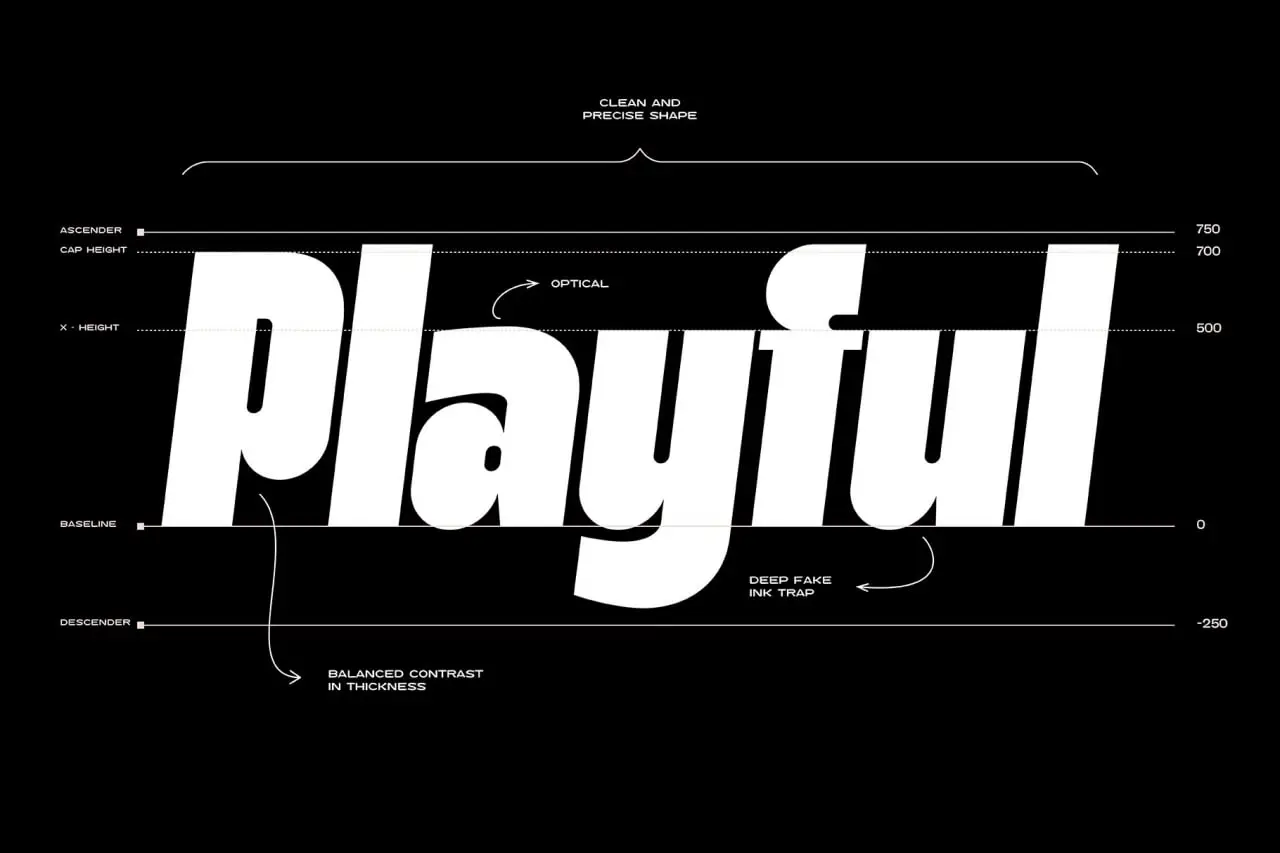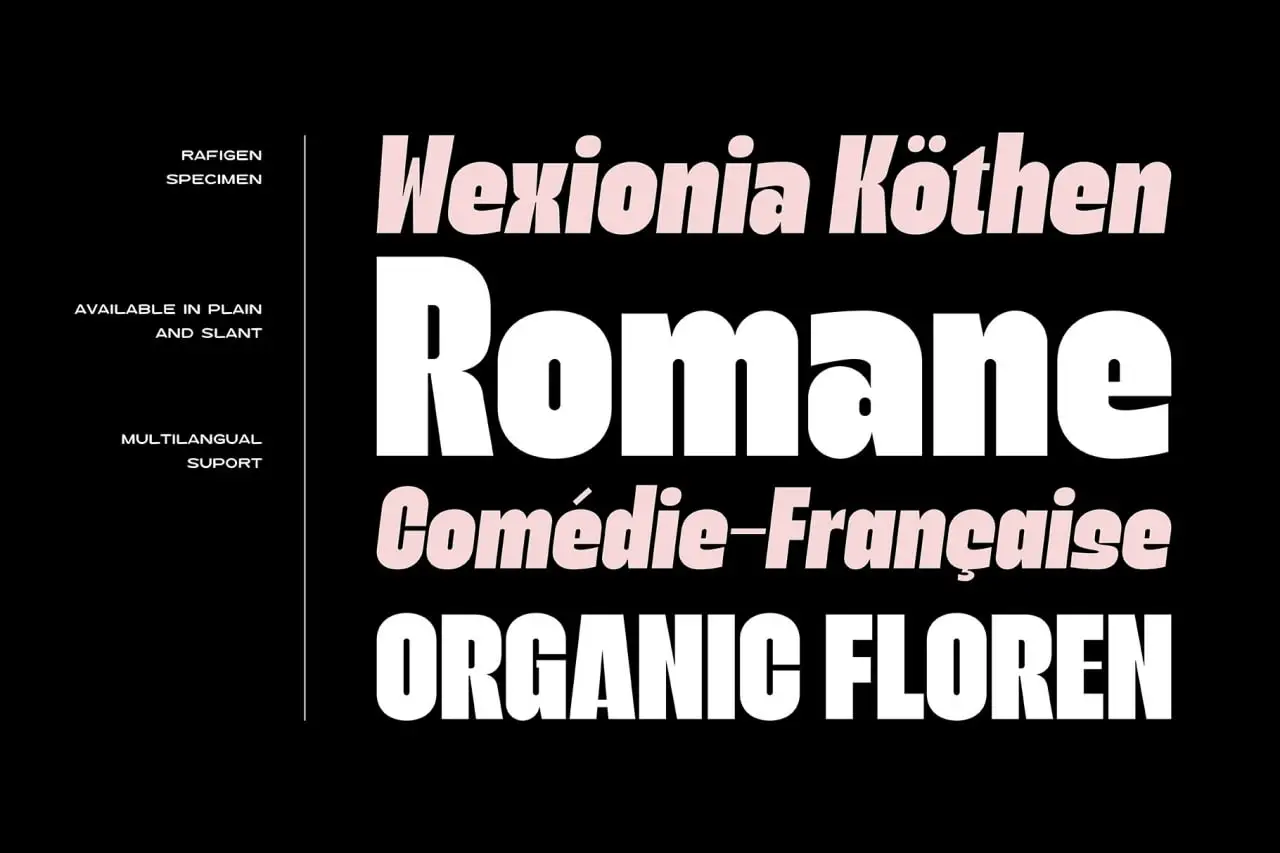
Rafigen Font By Surotype
The Rafigen Font, crafted by Surotype, is a versatile typeface that combines modern aesthetics with classic elegance. This font family offers a range of styles and weights, making it suitable for various design applications.
• Multiple weights and styles for flexibility
• Clean and contemporary design
• Well-suited for both display and body text
• Extensive character set for diverse language support
• Styles: Regular, Bold, Italic, and more
• Ideal for branding, logos, web design, and print materials
• Use in user interfaces for a clean and modern look